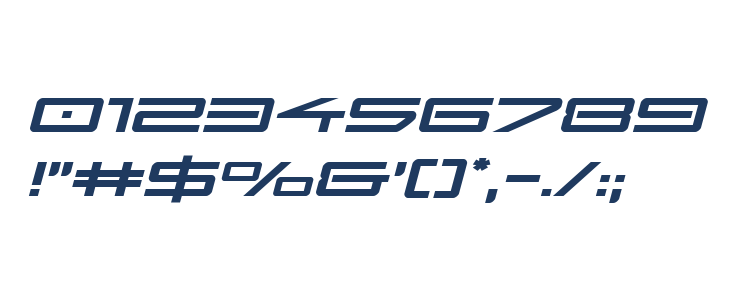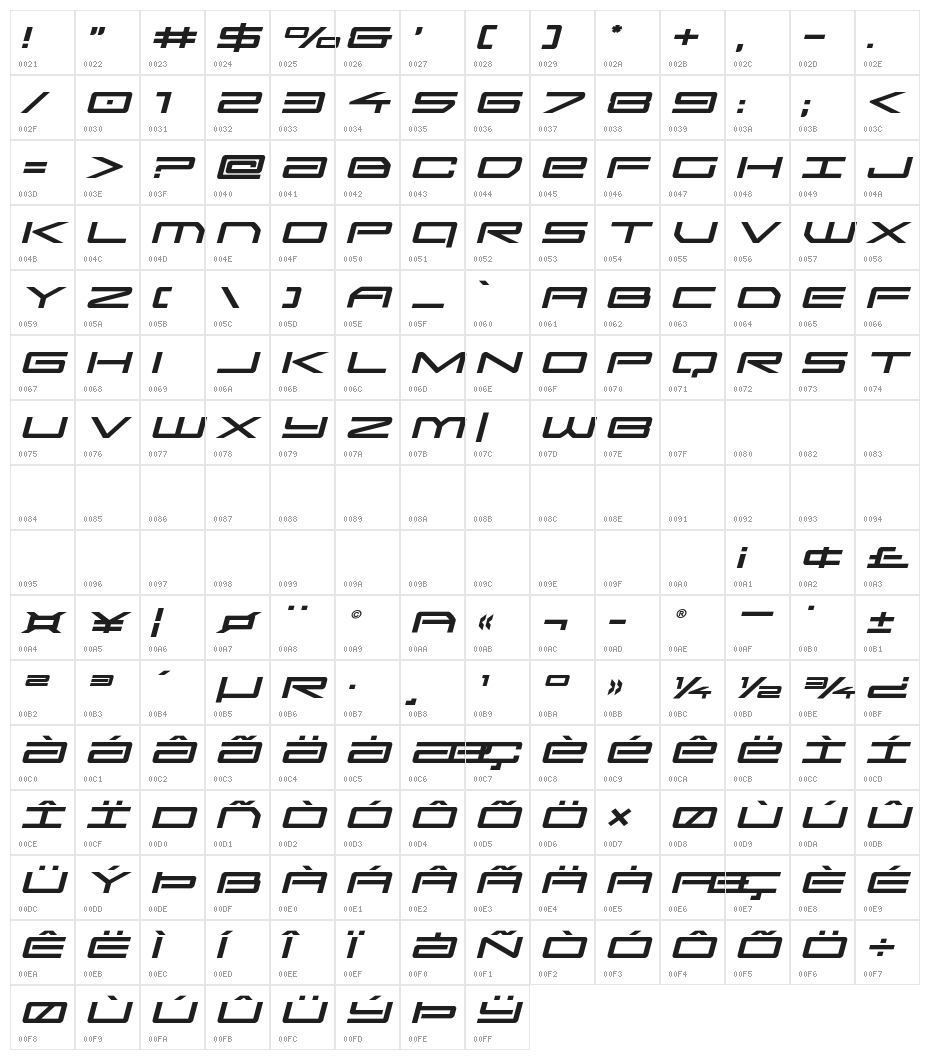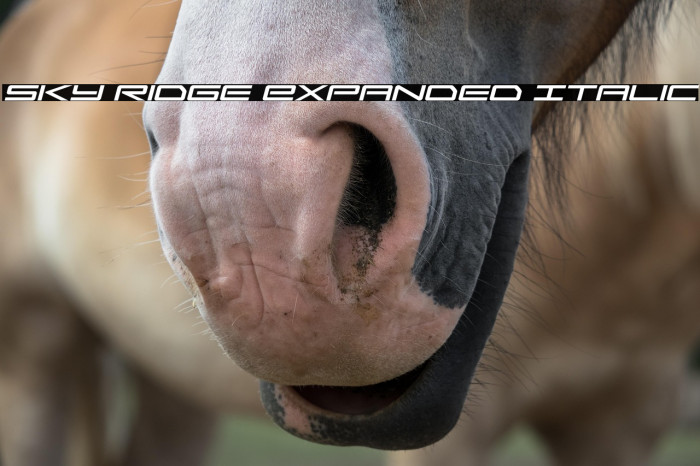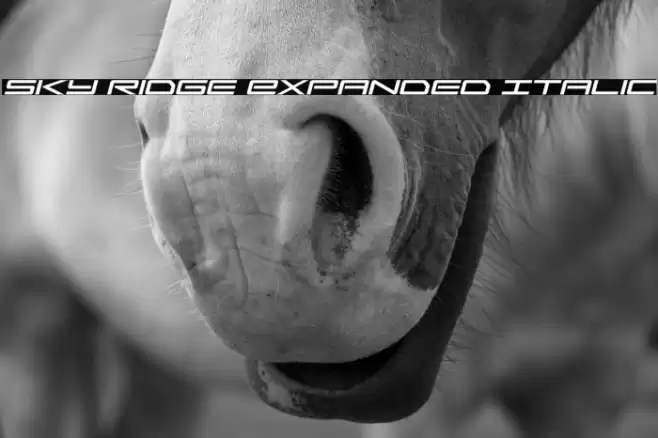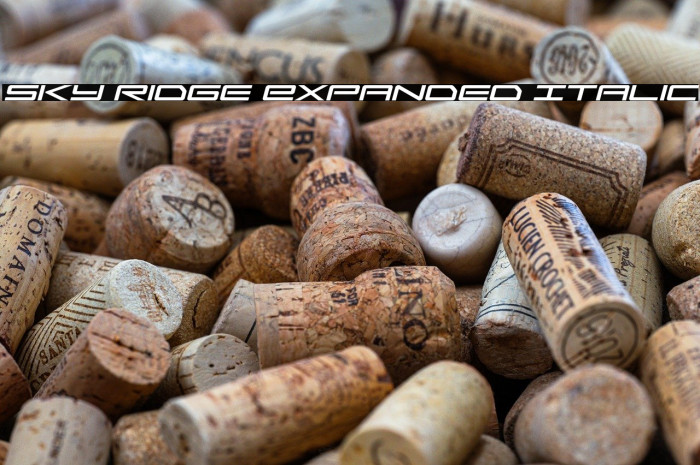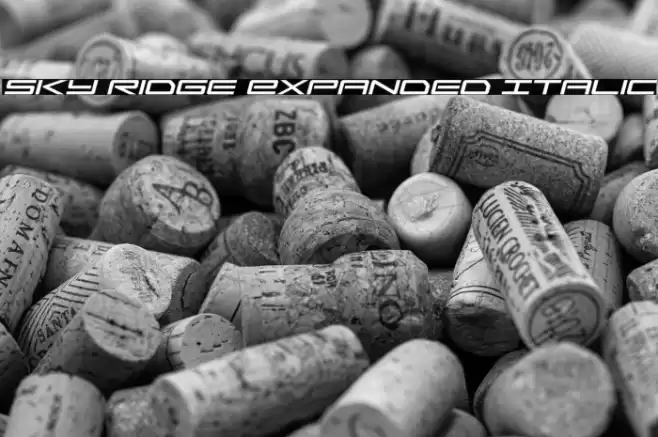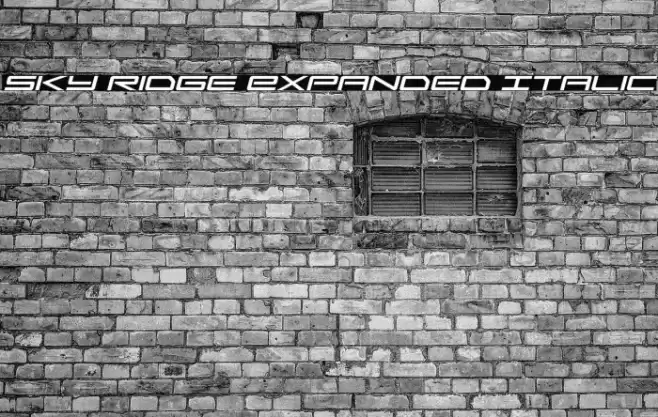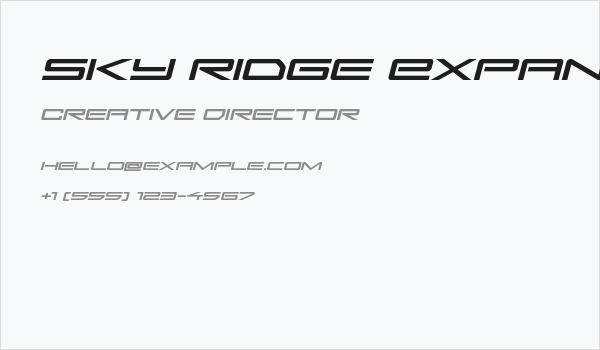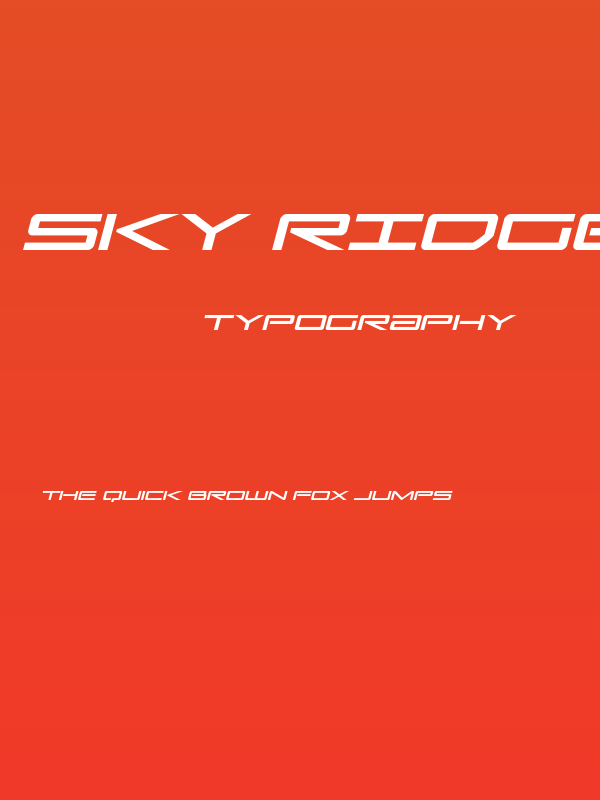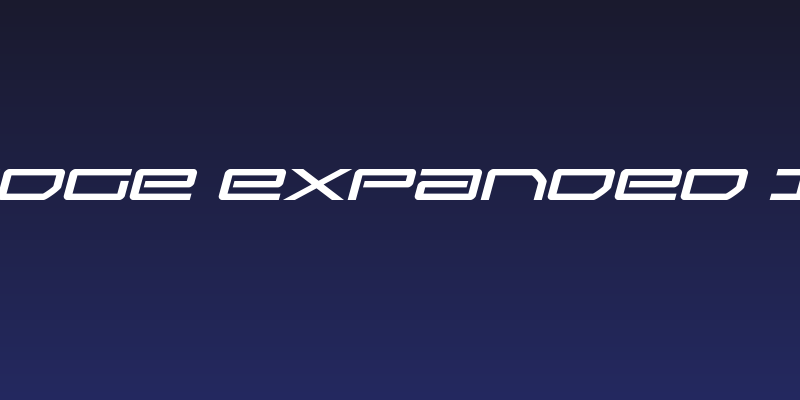
Sky Ridge Expanded Italic Font
Sky Ridge Expanded Italic Description
This font features a futuristic and sleek design, characterized by its expanded and italicized letterforms. The characters exhibit a geometric structure with sharp angles and clean lines, giving it a modern and dynamic appearance. The uppercase and lowercase letters maintain a consistent style, with a slight slant that adds a sense of motion and speed. The numerals and special characters are designed to complement the overall aesthetic, making it suitable for projects that require a contemporary and tech-savvy look.
| Proposed Projects | Ideal for technology branding, sci-fi themed designs, video game interfaces, and modern advertising campaigns. |